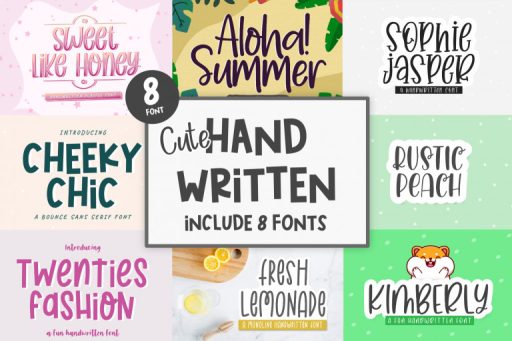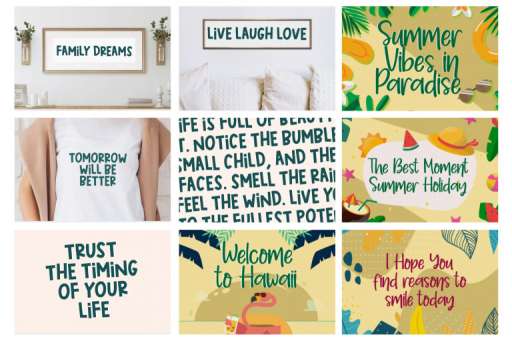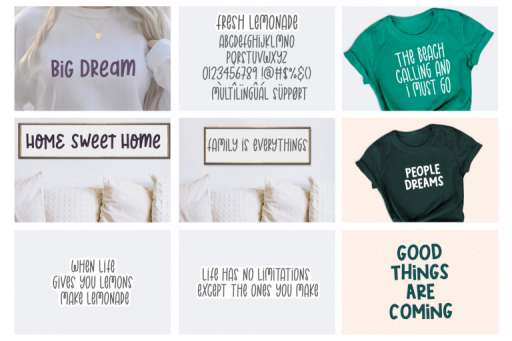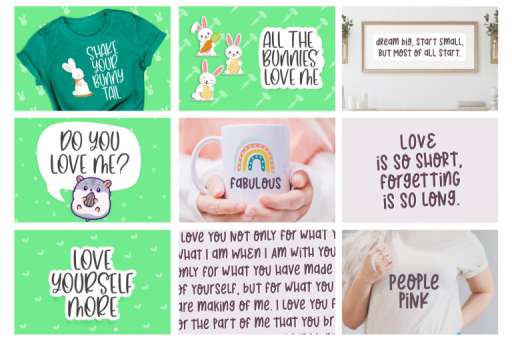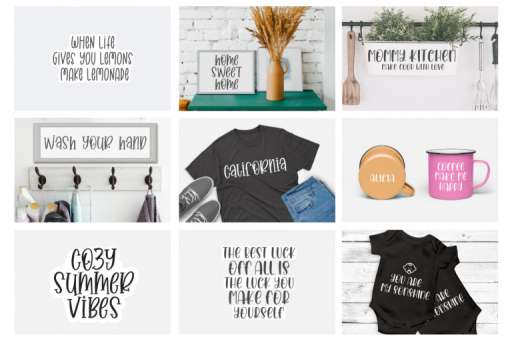
Cute Handwritten Font Bundle - Font From Jimtype Studio
Aloha Summer Font
Cheeky Chic Font
Fresh Lemonade Font
Kimberly Font
Rustic Peach Font
Sophie Jasper Font
Sweet Like Honey Font
Twenties Fashion Font
Cute Handwritten Font Bundle
Cute Handwritten Font Bundle is super fun and playful hand-lettered typeface.
Popular Bundle is a cute 8 handwritten font for crafters and designers.